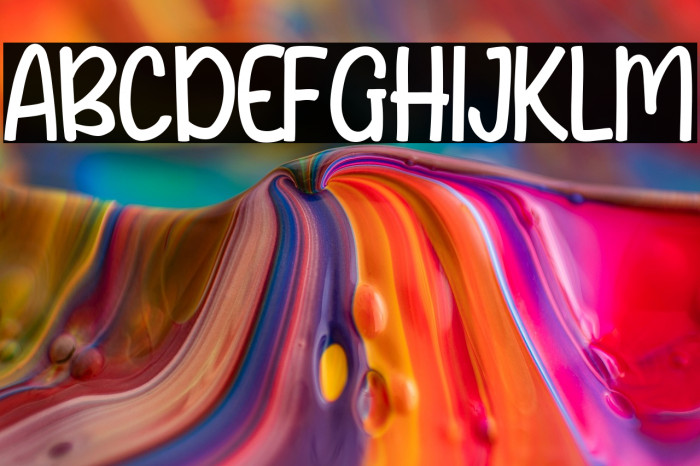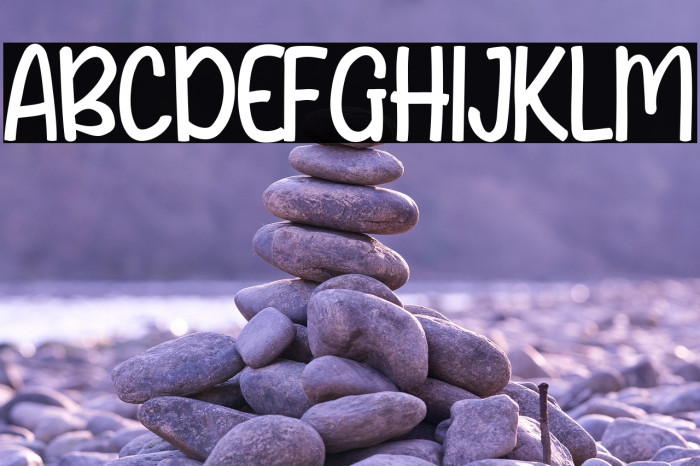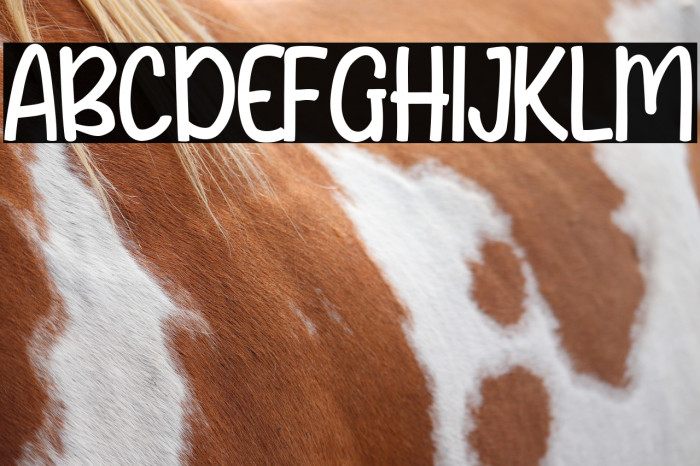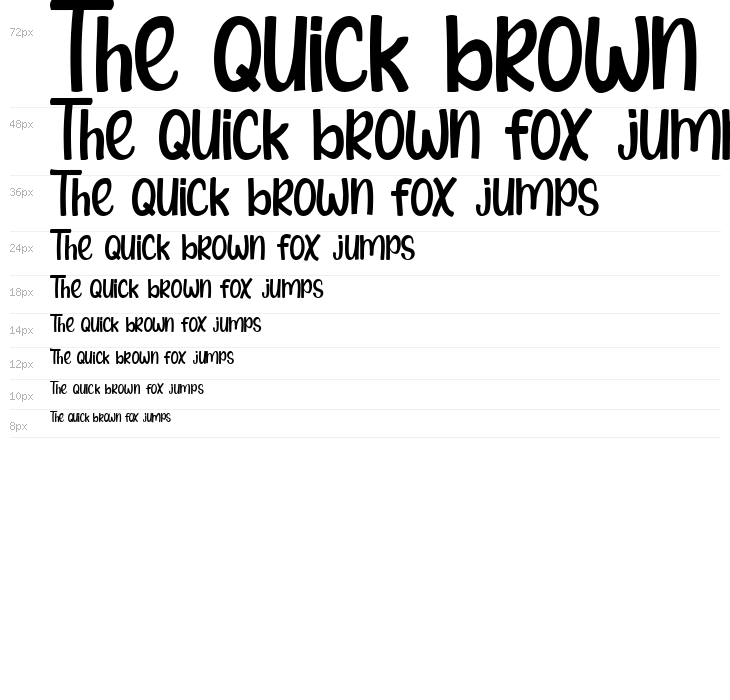
Rainory Font
Rainory Description
This playful and energetic font features a handwritten style with bold, rounded strokes that convey a sense of fun and creativity. The letters are slightly irregular, adding to the casual and informal feel. The uppercase and lowercase characters maintain a consistent style, with smooth curves and a friendly appearance. Numbers and special characters are designed to match the overall aesthetic, making this font versatile for various uses. Its boldness ensures readability while maintaining a whimsical charm.
| Proposed Projects | Ideal for children's books, playful branding, greeting cards, and creative posters. |